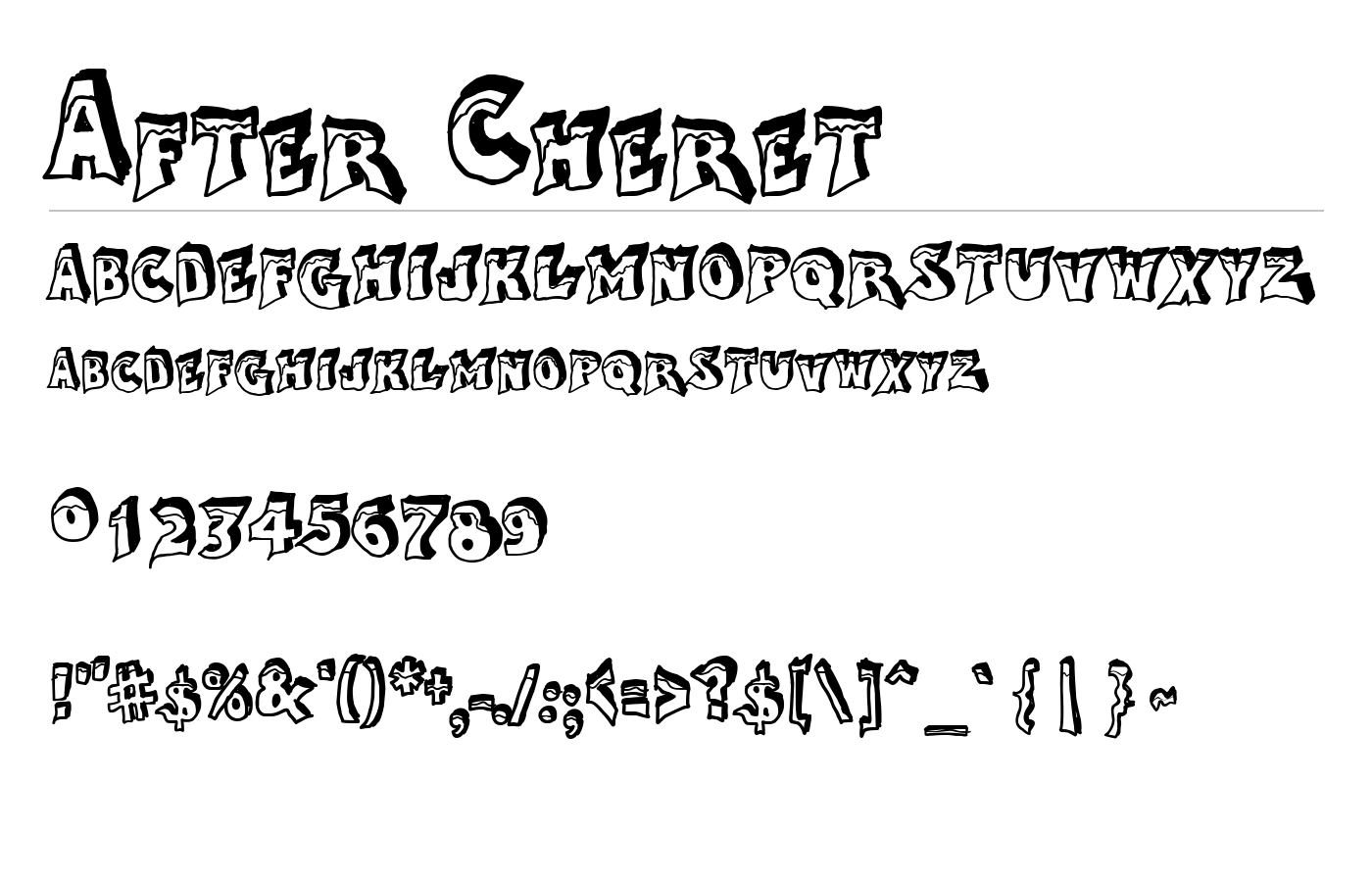
After Cheret is a bold and playful display font with a quirky, jagged design that gives it a hand-drawn, comic-like personality. Its all-uppercase style with irregular edges and uneven strokes make it perfect for eye-catching headlines, posters, or creative projects that want to convey energy and fun. This font works well in informal or artistic contexts where a unique and dynamic look is desired.
After Cheret Font
About After Cheret Font